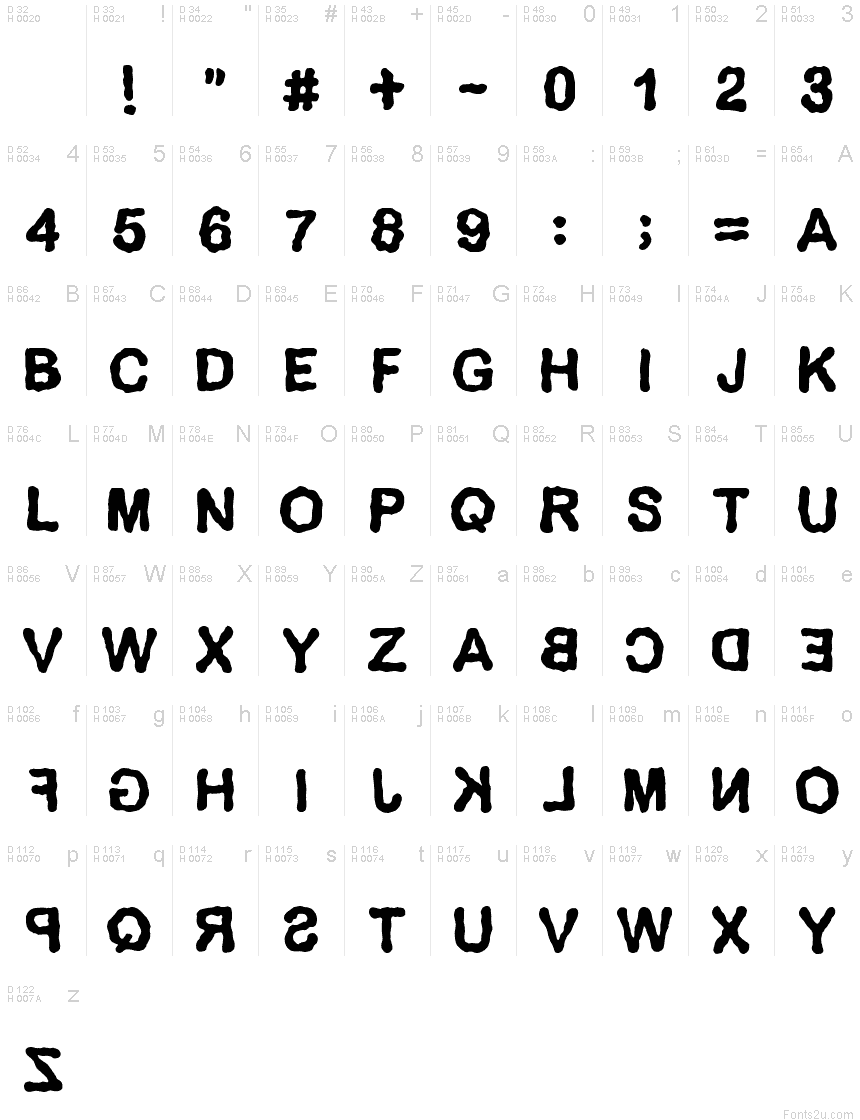
Delirium
Delirium font by Jakob Fischer of PizzaDude is a free distorted display typeface that looks like it’s been melted, stretched, and shaken all at once. Each letter feels hand-drawn and unstable, with bloated shapes and wobbling edges that give your text a woozy, off-balance energy. The bold, inky strokes read clearly even when they’re warped, so you get chaos and legibility in the same breath.
Using Delirium, you can push gig posters, horror titles, Halloween merch, underground zines, game logos, and noisy album covers into full-on fever-dream territory. This free font thrives at large sizes where its warped outlines can really breathe; pair it with a plain, narrow sans serif for body copy to keep everything readable while Delirium does the shouting.